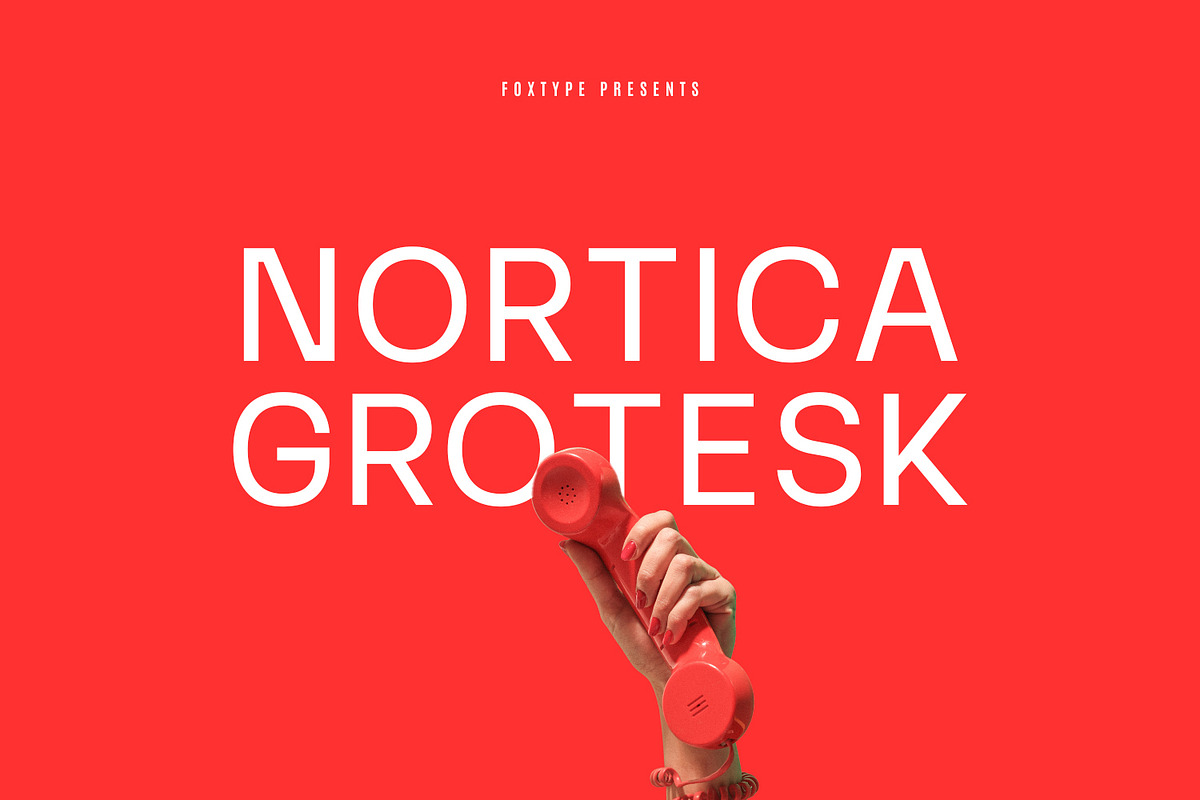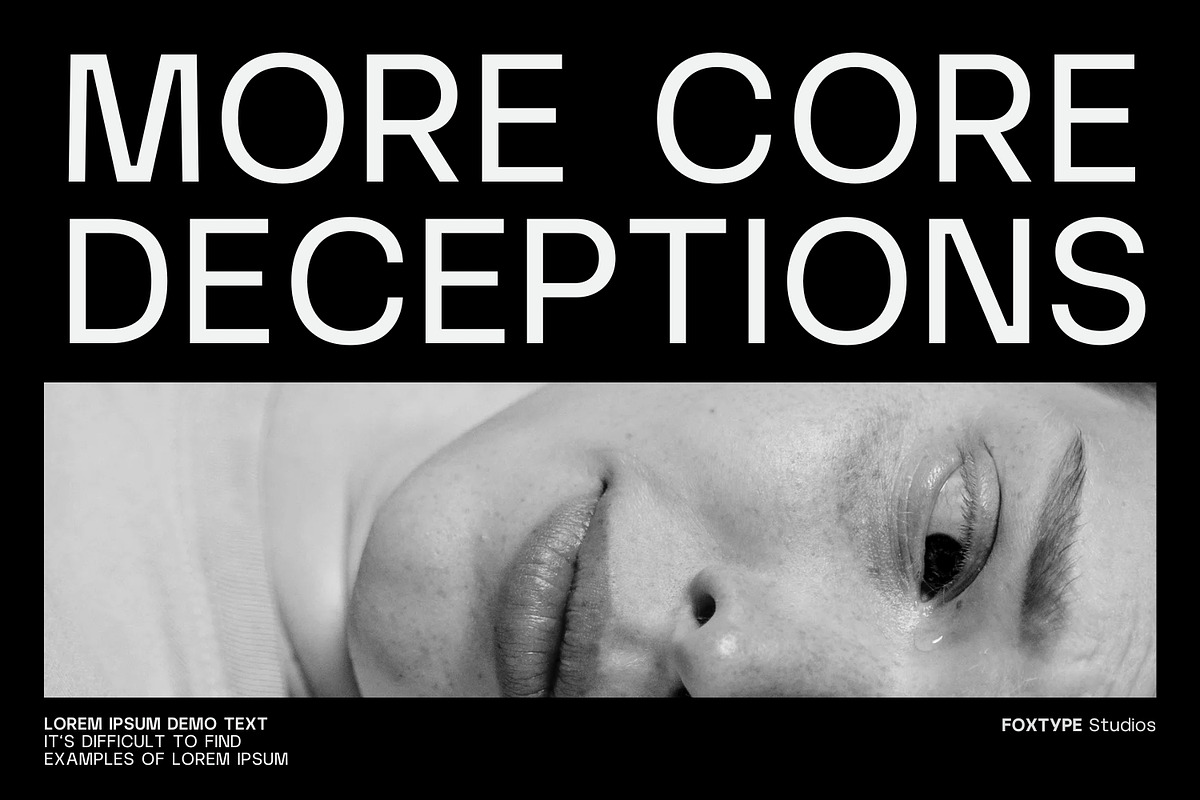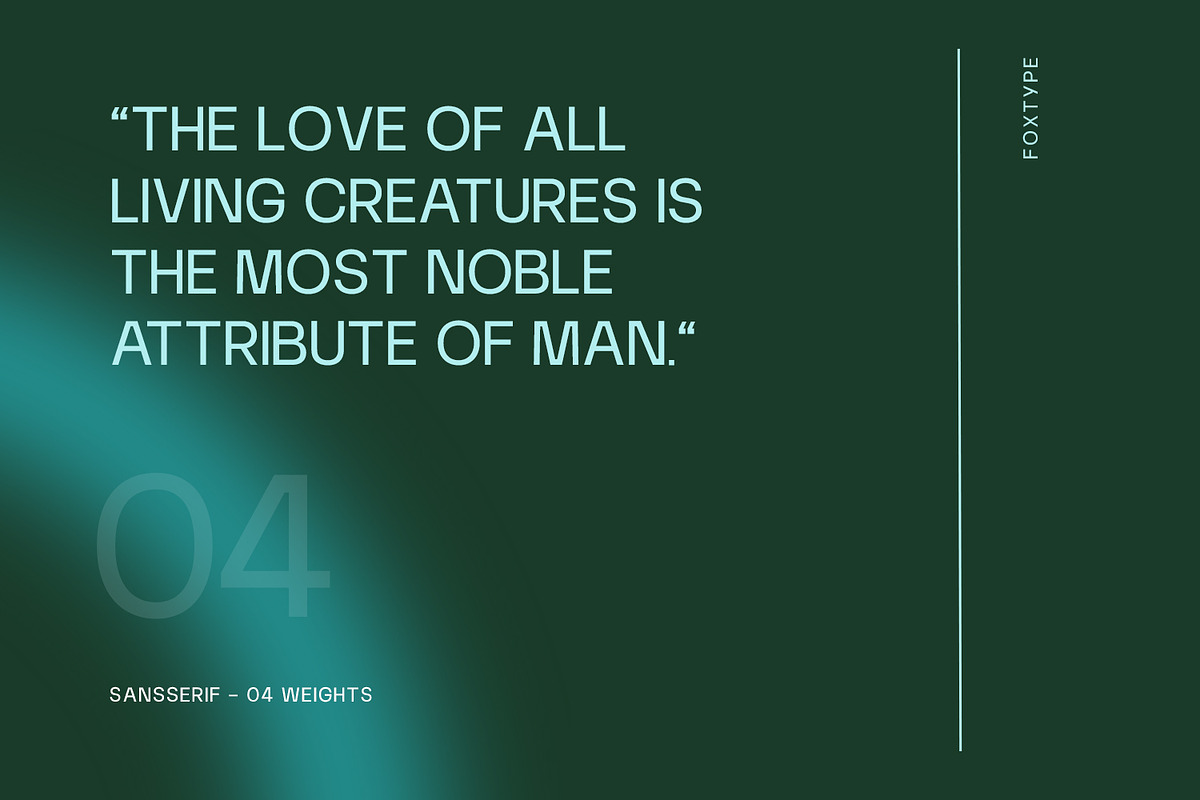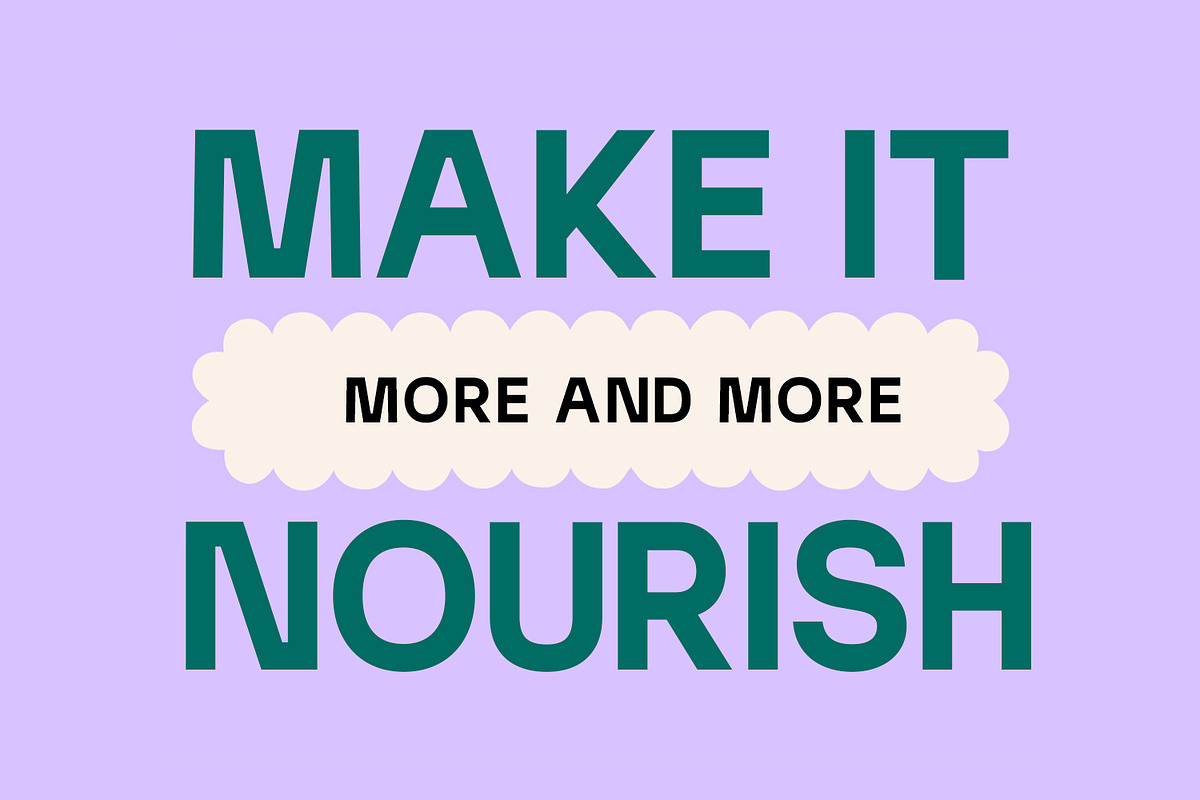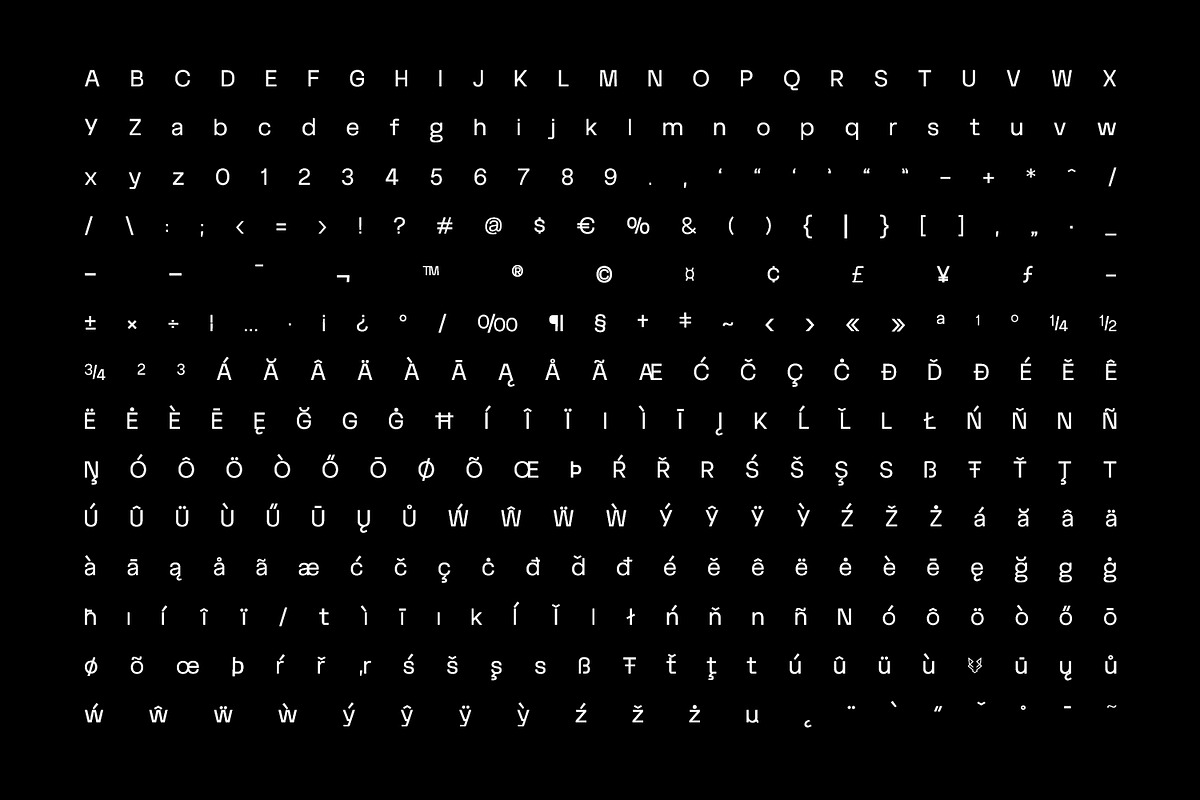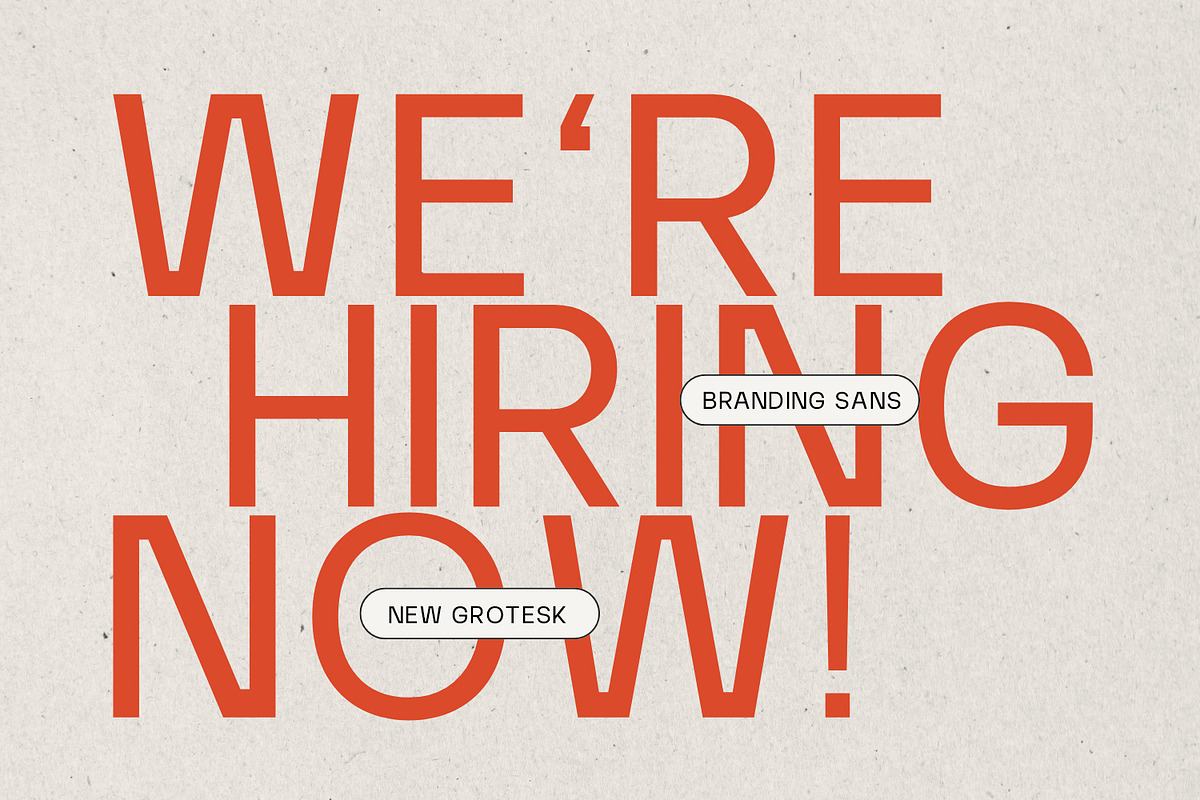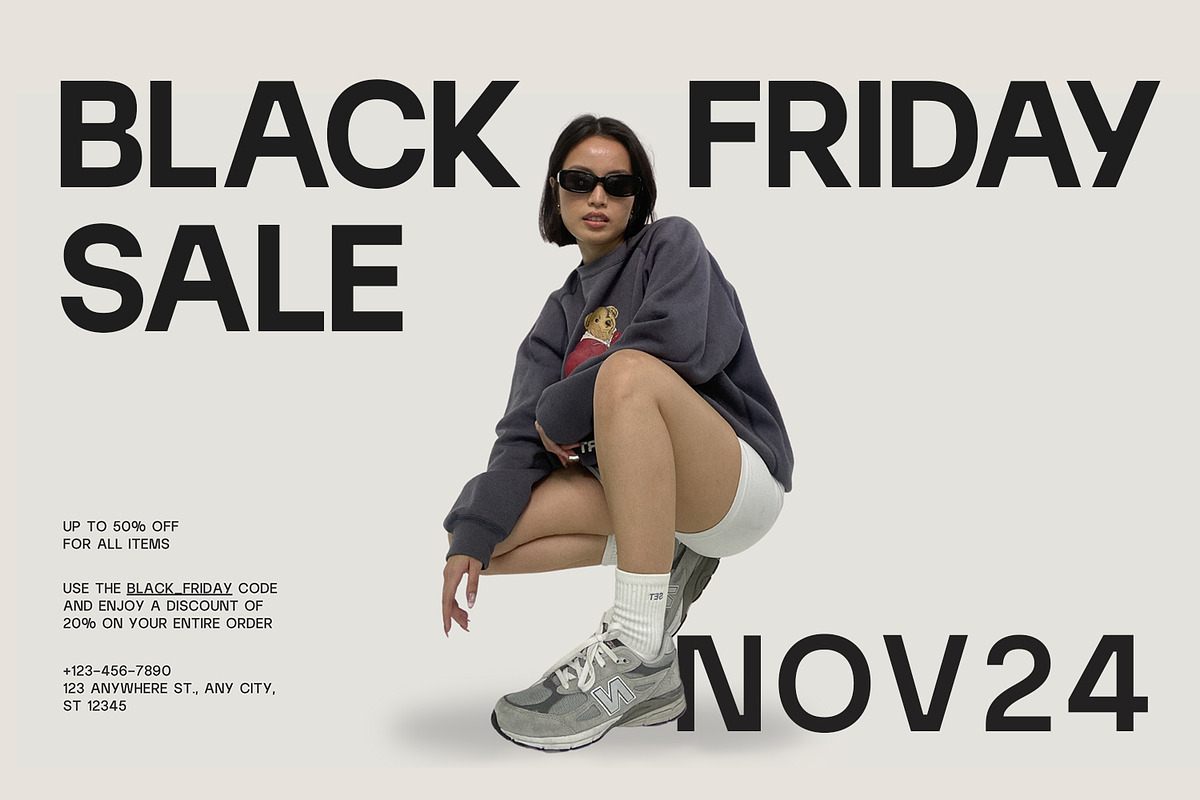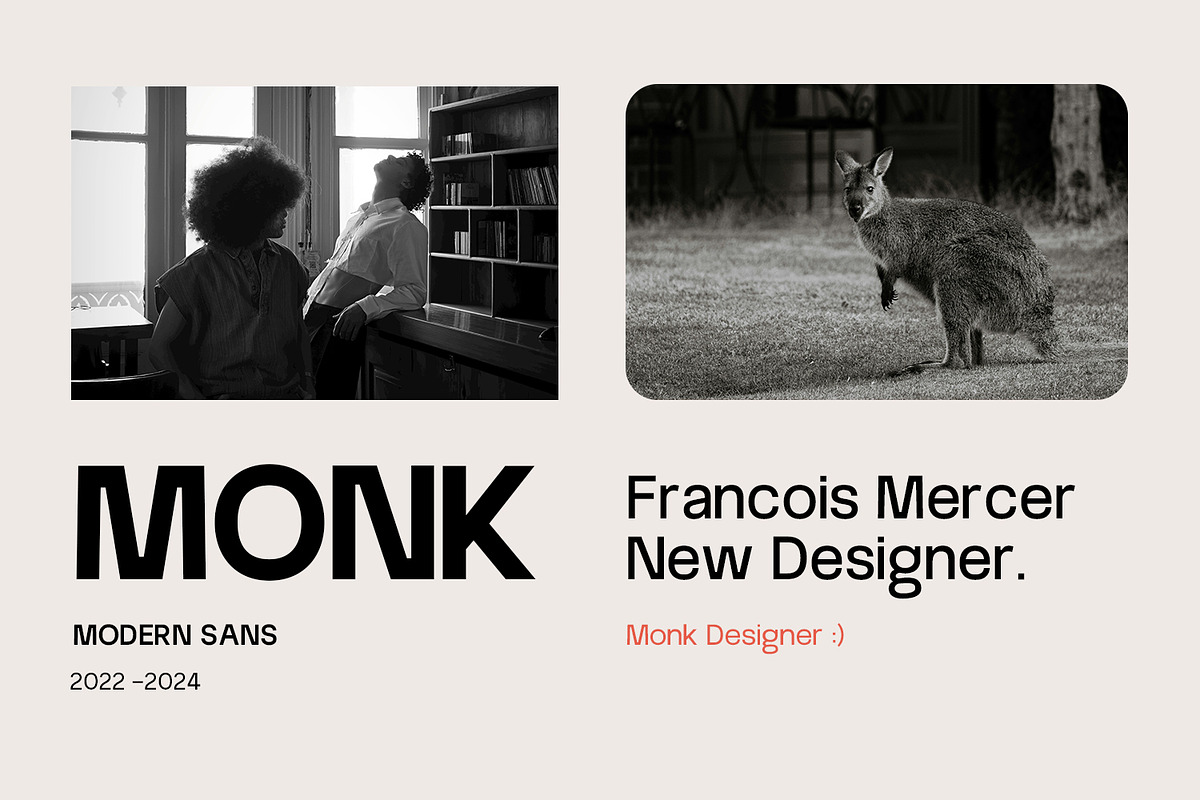
Nortica Display Typeface
Introducing Nortica Grotesk, a meticulously crafted modern sans-serif typeface perfect for a wide range of design projects. With 04 versatile weights, Nortica excels in creating striking headlines, captivating posters, and sophisticated branding materials. Its clean lines and contemporary style make it an ideal choice for magazine covers, logo designs, paragraph texts and more.